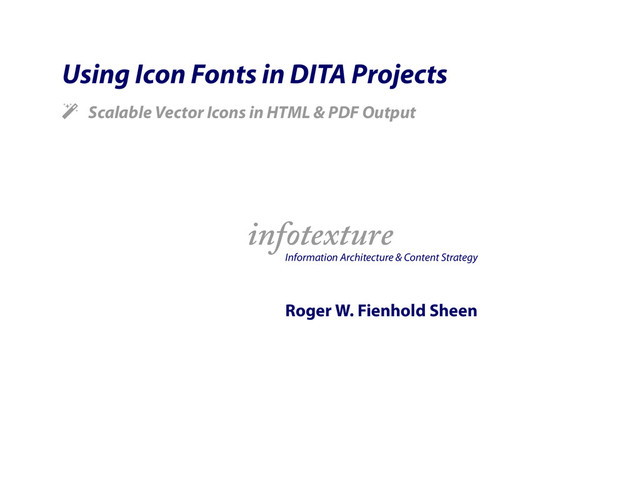
Using Icon Fonts in DITA Projects
Modern Web applications use fonts with scalable vector icons that render sharply at any resolution. Similar techniques can be used in DITA projects to include icons from the user interface in output. This session presents several options for integrating icon fonts in DITA projects and includes markup examples and renderer configurations to include icon glyphs in multiple output formats.
1. Using Icon Fonts in DITA Projects ! Scalable Vector Icons
in HTML & PDF Output infotexture Information Architecture & Content Strategy Roger W. Fienhold Sheen
2. " Agenda Introduction Part I — Background & Concepts Why
Use Fonts for Icons? Selecting an Icon Font Adding the Icon Resources to Your Project Part II — Markup Examples Defining & Referencing Icons in DITA Source Customizations for HTML Output Customizations for Print (PDF) Output Editor Affordances References & Resources 2
3. # $ Introduction Modern Web applications use fonts with scalable
vector icons that render sharply at any resolution. Similar techniques can be used in DITA projects to include icons from the user interface in output. This session presents several options for integrating icon fonts in DITA projects and includes markup examples and renderer configurations to include icon glyphs in multiple output formats. 3
4. % Part I — Background & Concepts Why Use Fonts
for Icons? At 16 pixels, an icon like this might look fine, but at 320? “Here there be jaggies…” → Icon font benefits Scale easily Change color easily Include shadows easily Can have transparent knockouts Well-supported by modern web browsers Can be designed on the fly (change on :hover, etc.) Can do anything image icons can do (change opacity, rotate, etc.) 4
5. & Selecting an Icon Font Many popular open source fonts
have licenses that permit commercial use. Check glyphsearch.com to find icons you like. Font Awesome Ionicons Iconic Octicons Other factors to consider: Size & glyph coverage: how large are the files and what icons do they include? Custom icon fonts: create a custom font with only the icons you need Accessibility: what will screen readers “see” and visually impaired users hear? Acessibility-aware fonts often use the Unicode Private Use Area (PUA) and the CSS property speak:  none to ensure screen readers don’t read icons aloud. 5
6. ' Adding the Icon Resources to Your Project Decide where
7. ( Part II — Markup Examples Defining & Referencing Icons
in DITA Source Decide which element to customize: <uicontrol> seems like a logical candidate, but it isn’t allowed everywhere. The generic phrase element <ph> is more flexible (permits nesting). Defining icon keys in a key map <!-­‐-­‐  Define  keys  for  Font  Awesome  icons  -­‐-­‐>     <keydef  keys="icons"  href="common/icons.dita"  type="topic"  format="dita"/> For HTML output, add an @outputclass attribute to each key <uicontrol  id="check"  outputclass="icon-­‐check"/> For PDF output, add the character glyph to each key’s content <uicontrol  id="check"  outputclass="icon-­‐check">&#xf046;</uicontrol> But why? 7
8. What’s going on here? — Why Different Markup for HTML
& PDF? For HTML output, icons are inserted via the CSS ::before pseudo-element, which inserts content before every instance of the element it is associated with. Icon fonts typically include stylesheets (CSS, LESS or SCSS files) with rules like: .icon-­‐check:before  {    /*  Insert  check  mark  */    content:  "\f046"; } For PDF output, the character glyph must be explicitly added to each key’s content, since XSL-FO does not support the ::before pseudo-element. The numeric value for each icon is typically provided in a reference document (or “cheatsheet”), which lists each icon with its CSS class & Unicode value: ) icon-check ( &#xf046; ) 8
9. Markup alternatives Conditional elements (filtered by output format) <uicontrol  otherprops="htmlonly"
outputclass="icon-­‐check"/> <uicontrol  otherprops="printonly"  outputclass="icon-­‐check">&#xf046;</uicontrol> Combine conditional <uicontrol> elements in a <menucascade> <ph  id="check">    <menucascade>        <uicontrol  otherprops="htmlonly"  outputclass="icon-­‐check"/>        <uicontrol  otherprops="printonly"  outputclass="icon-­‐check">&#xf046;</uicontrol>    </menucascade> </ph> Conditionalize key definitions by output type, use simpler (unconditional) keys <!-­‐-­‐  Conditional  keys  for  HTML  output  -­‐-­‐> <keydef  keys="icons"  otherprops="htmlonly"  href="common/html-­‐icons.dita"  type="topic"  format="dita"/> <!-­‐-­‐  Conditional  keys  for  print  (PDF)  output  -­‐-­‐> <keydef  keys="icons"  otherprops="printonly"  href="common/pdf-­‐icons.dita"  type="topic"  format="dita"/> <ph  id="check"  outputclass="icon-­‐check"/> 9
10. Referencing icon keys To include an icon in your document,
include a reference to the key like this: <ph  conkeyref="icons/check"/> The icons can be combined with other elements and referenced together. The following example shows an excerpt from menus.dita , which is defined in the root map as the source for menus keys: <ph  id="dashboard">        <ph  conkeyref="icons/dashboard"/>&#xA0;<uicontrol>Dashboard</uicontrol>     </ph> Insert a key reference like <ph  conkeyref="menus/dashboard"/> to show both the icon and the text: * Dashboard. 10
11. + Customizations for HTML Output Icon fonts designed for the
web are easy to integrate. Extend custom CSS Import the style sheets provided with the icon fonts to your custom CSS file (typically CSS, LESS or SCSS): @import  "../assets/icons/font-­‐awesome/less/font-­‐awesome.less"; Extend build scripts to copy fonts to output <mkdir  dir="${project.output.dir}/html/assets/icons/font-­‐awesome/font"/>     <copy  todir="${project.output.dir}/html/assets/icons/font-­‐awesome/font">        <fileset  dir="${project.dir}/assets/icons/font-­‐awesome/font">            <include  name="FontAwesome.otf"/>            <include  name="fontawesome-­‐webfont.woff"/>            <include  name="fontawesome-­‐webfont.ttf"/>            <include  name="fontawesome-­‐webfont.svg"/>            <include  name="fontawesome-­‐webfont.eot"/>        </fileset>     </copy> 11
12. , Customizations for Print (PDF) Output PDF output requires a
bit more work than HTML, and the steps depend on which renderer you use to convert XSL-FO (Apache FOP, RenderX XEP, Antenna House). Customization Overview 1. Extend (or create) custom PDF plugins to use your icon font Add new character set for icons to logical fonts in font-­‐mappings.xml Extend logical fonts to associate icon character set with a new font Add a new attribute set to commons-­‐attr.xsl Create new template to apply the custom attribute set to icons 2. Configure your XSL Formatting Objects renderer to find & use your icon font Define new character set for icon code ranges (XEP) Define new font family for icon font (XEP) Add, install, and/or register font file(s) 12
13. PDF Plugins The font-­‐mappings.xml file maps logical fonts used in
the XSLT stylesheets to the physical fonts used by the FO processor to generate PDF output. Add a new logical font to the <font-­‐table> in font-­‐mappings.xml <font-­‐mappings>    <font-­‐table>        <!-­‐-­‐  […]  -­‐-­‐>        <logical-­‐font  name="FontAwesome">            <physical-­‐font  char-­‐set="default">                <font-­‐face>FontAwesome</font-­‐face>            </physical-­‐font>            <!-­‐-­‐  […]  -­‐-­‐>        </logical-­‐font>    </font-­‐table> </font-­‐mappings> Extend the existing logical font entries with a new physical-­‐font element to map the icon character set to the icon font <physical-­‐font  char-­‐set="Font  Awesome">    <font-­‐face>FontAwesome</font-­‐face> </physical-­‐font> 13
14. Add a new attribute set to /cfg/fo/attrs/commons-­‐attr.xsl <xsl:attribute-­‐set  name="ph_icon">
<xsl:attribute  name="border-­‐left-­‐width">0pt</xsl:attribute>    <xsl:attribute  name="border-­‐right-­‐width">0pt</xsl:attribute>    <xsl:attribute  name="font-­‐family">FontAwesome</xsl:attribute> </xsl:attribute-­‐set> Create new template to apply the custom attribute set to all phrase elements whose @outputclass contains icon-­‐* <xsl:template  match="*[contains(@class,'  topic/ph  ')]">        <xsl:choose>            <xsl:when  test="contains(@outputclass,'icon-­‐')">                <fo:inline  xsl:use-­‐attribute-­‐sets="ph_icon">                    <xsl:call-­‐template  name="commonattributes"/>                    <xsl:apply-­‐templates/>                </fo:inline>            </xsl:when>            <xsl:otherwise>                <fo:inline  xsl:use-­‐attribute-­‐sets="ph">                    <xsl:call-­‐template  name="commonattributes"/>                    <xsl:apply-­‐templates/>                </fo:inline>            </xsl:otherwise>        </xsl:choose>     </xsl:template> 14
15. RenderX XEP Configuration Define new character set for icon code
ranges in XEP/xep.xml <charset  name="Font  Awesome">        <code-­‐ranges>            <code-­‐range  from="0xf000"  to="0xf18a"/>        </code-­‐ranges>     </charset> Define new font family for icon font & add font file to XEP/fonts <font-­‐family  name="FontAwesome"  embed="true"  subset="true">        <font>            <font-­‐data  otf="FontAwesome.otf"/>        </font>     </font-­‐family> 15
16. Apache Formatting Objects Processor (FOP) Configuration Install the icon font
on your operating system. For DITA-OT versions prior to 1.8, adjust the Apache FOP configuration to tell FOP to look for the icon font in the system fonts. In your custom PDF plugin, edit fop/conf/fop.xconf to allow Apache FOP to detect the system fonts: add an auto-­‐detect element to the fonts element in the renderer element with the @mime attribute set to “application/pdf ”: <renderer  mime="application/pdf">        <!-­‐-­‐  […]  -­‐-­‐>            <fonts>                <!-­‐-­‐  automatically  detect  operating  system  installed  fonts  -­‐-­‐>                <auto-­‐detect/>            </fonts>        <!-­‐-­‐  […]  -­‐-­‐>     </renderer> 16
17. - Editor Affordances Customizing your authoring environment to display the
icons. <oXygen/> Example The <oXygen/> XML Editor allows you to customize the presentation of XML content shown in Author mode by creating alternate style sheets that extend the built-in (default) styles. This mechanism can be used to approximate the look-and-feel of company documents by adjusting fonts & colors to according to branding guidelines. Add @font-­‐face declaration to define the font file to use for the icons: @font-­‐face  {        font-­‐family:  'FontAwesome';        src:  url('font-­‐awesome/font/fontawesome-­‐webfont.ttf?v=3.2.1')  format('truetype');        font-­‐weight:  normal;        font-­‐style:  normal;     } 17
18. Add a rule to select elements whose @outputclass begins with
or contains icon-­‐ and set them to use the new font-­‐family : [outputclass^="icon-­‐"],     [outputclass*="  icon-­‐"]  {        font-­‐family:  FontAwesome;        font-­‐weight:  normal;        font-­‐style:  normal;        text-­‐decoration:  inherit;        -­‐webkit-­‐font-­‐smoothing:  antialiased;        margin-­‐right:  .3em;     } 18